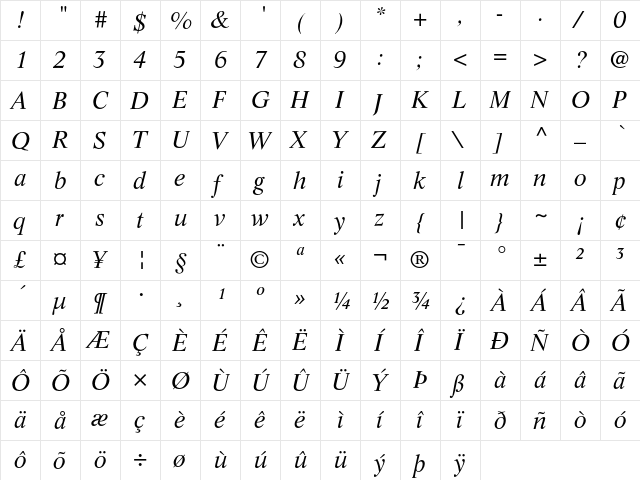
Life Regular
Design Context for Life Typeface
Life offers clean, dependable letterforms without strong stylistic allegiance, making it a practical choice for designers who need flexibility.
Pro Tip: Use Life in both headline and body roles to test its range before committing to a single application.